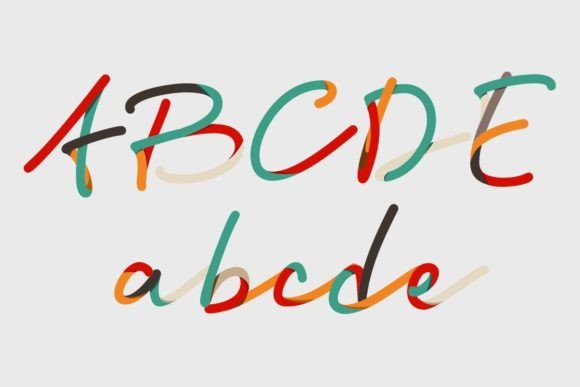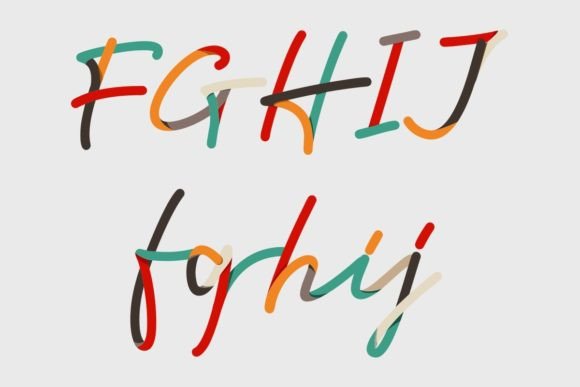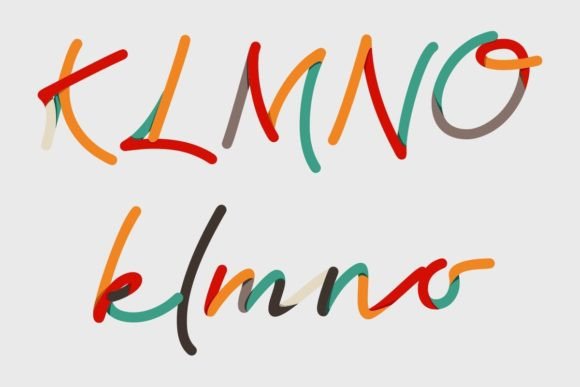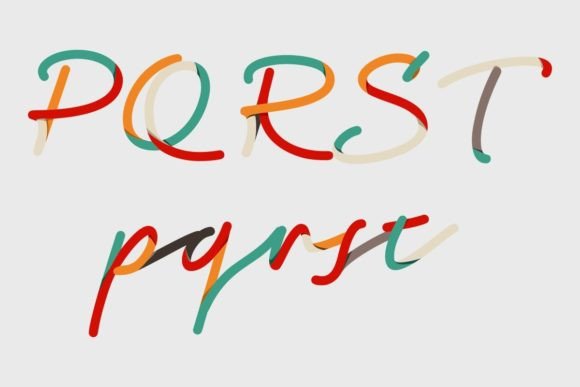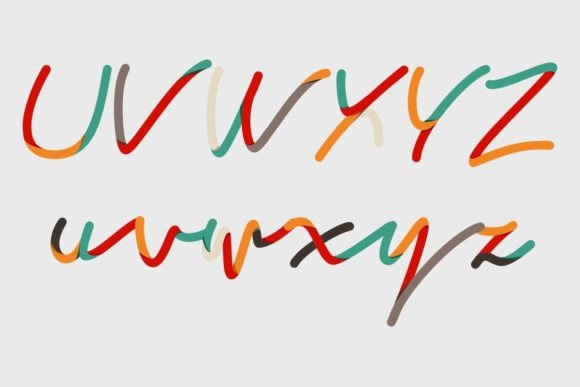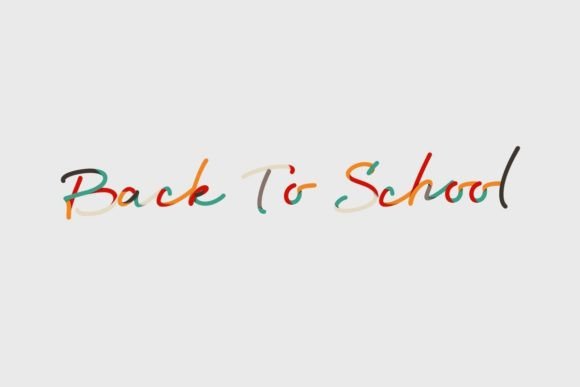
Frisia Font: Add a Pop of Color to Your Creative Projects
Are you looking for a font that can add a touch of playfulness and uniqueness to your creative projects? Look no further than Frisia Font, a script color font with a fresh vintage color palette. In this article, we’ll explore the features and benefits of Frisia Font, and how it can be used to elevate your designs and crafts.
What is Frisia Font?
Frisia Font is a script color font that combines the elegance of a handwritten font with the vibrancy of a vintage color palette. This font is perfect for designers and crafters who want to add a pop of color to their projects, making them stand out from the crowd. With Frisia Font, you can create eye-catching posters, colorful merchandise, and engaging school projects that are sure to delight.
Key Features of Frisia Font
• Playful Script Font: Frisia Font is a script font with a playful and elegant feel, perfect for adding a touch of personality to your projects.
• Fresh Vintage Color Palette: The font comes with a fresh vintage color palette that creates a vibrant and joyful feel, making it perfect for creative projects.
• Easy to Use: With Frisia Font, you can easily create colorful and engaging projects, even if you have limited design experience.
Use Cases for Frisia Font
Frisia Font is versatile and can be used for a variety of creative projects, including:
• School Projects: Add a pop of color to your school projects, such as presentations, posters, and reports.
• Posters and Flyers: Create eye-catching posters and flyers for events, promotions, or announcements.
• Merchandise: Design colorful merchandise, such as t-shirts, mugs, and tote bags, that are sure to stand out.
• Crafting Projects: Use Frisia Font to add a touch of personality to your crafting projects, such as scrapbooking, card making, and DIY home decor.
Tips and Tricks for Using Frisia Font
To get the most out of Frisia Font, here are some tips and tricks to keep in mind:
• Experiment with Colors: Don’t be afraid to experiment with different colors and combinations to find the perfect look for your project.
• Mix and Match: Combine Frisia Font with other fonts and design elements to create a unique and eye-catching design.
• Pay Attention to Legibility: While Frisia Font is a playful font, make sure to keep legibility in mind, especially when using it for body text.
Frisia Font is a versatile and playful script color font that can add a pop of color and personality to your creative projects. With its fresh vintage color palette and compatibility with popular design software, Frisia Font is perfect for designers and crafters looking to elevate their designs and crafts. Whether you’re working on a school project, poster, merchandise, or crafting project, Frisia Font is sure to make your project stand out.